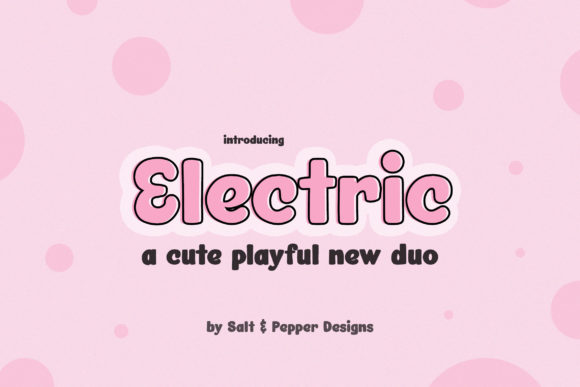
Introducing Electric Duo Font: The Perfect Choice for Fun and Creative Projects
Are you looking for a font that can add a touch of playfulness and authenticity to your children’s activity or school project? Look no further than Electric Duo Font! This cool and friendly outlined display font is designed to bring a sense of fun and excitement to any project, making it the perfect choice for kids and educators alike.
What is Electric Duo Font?
Electric Duo Font is a unique and eye-catching font that features outlined letters with a bold and playful design. The font is carefully crafted to convey a sense of energy and excitement, making it perfect for projects that require a fun and lively touch. Whether you’re working on a children’s activity sheet, a school project, or a fun DIY craft, Electric Duo Font is sure to add a pop of personality to your work.
Key Features of Electric Duo Font
- Outlined Design: Electric Duo Font features a bold and outlined design that gives it a unique and eye-catching look.
- Playful and Friendly: The font is carefully crafted to convey a sense of playfulness and friendliness, making it perfect for kids and educators.
- Display Font: Electric Duo Font is a display font, making it perfect for headlines, titles, and other prominent text elements.
- Easy to Read: Despite its bold and outlined design, Electric Duo Font is easy to read and understand, making it perfect for use in a variety of projects.
Why Choose Electric Duo Font?
So why choose Electric Duo Font for your next project? Here are just a few reasons why this font stands out from the crowd:
- Perfect for Kids: Electric Duo Font is designed with kids in mind, making it perfect for children’s activity sheets, school projects, and other fun and creative endeavors.
- Adds a Touch of Personality: The font’s bold and outlined design adds a touch of personality to any project, making it stand out from the crowd.
- Authentic and Playful: Electric Duo Font embodies a sense of authenticity and playfulness, making it perfect for projects that require a fun and lively touch.
- Easy to Use: The font is easy to use and can be easily integrated into a variety of projects, including digital and print materials.
Use Cases for Electric Duo Font
Electric Duo Font is a versatile font that can be used in a variety of projects, including:
- Children’s Activity Sheets: Add a touch of fun and excitement to your children’s activity sheets with Electric Duo Font.
- School Projects: Use Electric Duo Font to add a pop of personality to school projects, including presentations, posters, and reports.
- Diy Crafts: Electric Duo Font is perfect for DIY crafts, including handmade cards, gift tags, and other fun projects.
- Digital Materials: Use Electric Duo Font in digital materials, including social media graphics, blog posts, and other online content.
Tips for Using Electric Duo Font
Here are a few tips for using Electric Duo Font in your projects:
- Use it as a Headline Font: Electric Duo Font is perfect for use as a headline font, adding a touch of personality and excitement to your project.
- Pair it with Other Fonts: Electric Duo Font pairs well with other fonts, including serif and sans-serif fonts.
- Experiment with Colors: Electric Duo Font looks great in a variety of colors, including bright and bold colors.
- Keep it Simple: Don’t be afraid to keep it simple and use Electric Duo Font on its own to add a touch of personality to your project.
In conclusion, Electric Duo Font is a cool and friendly outlined display font that is perfect for adding a touch of playfulness and authenticity to any project. With its bold and outlined design, Electric Duo Font is sure to stand out from the crowd and add a pop of personality to your work. Whether you’re working on a children’s activity sheet, a school project, or a fun DIY craft, Electric Duo Font is the perfect choice.